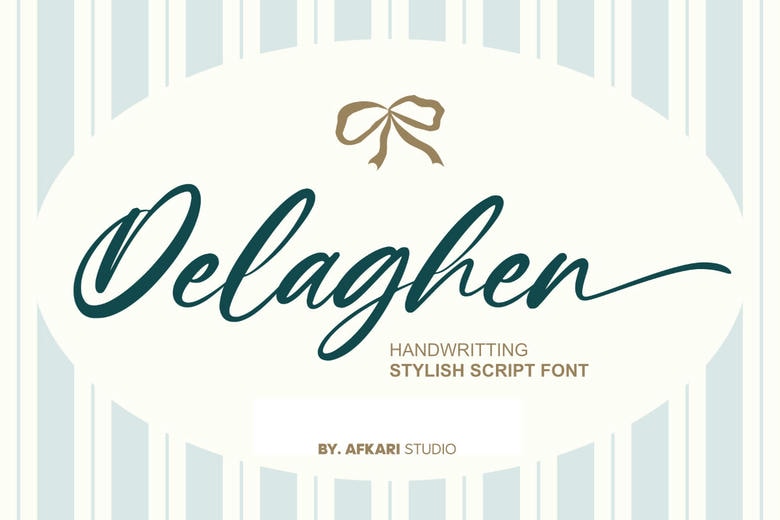
Delaghen Font
Delaghen is a script font that combines elegance with the feel of real handwriting. Its smooth curves and clean lines give it a modern, graceful look, while still keeping the warmth and personality of a handwritten note.
Delaghen’s flowing letters and stylish design make it a good choice for projects that should feel both elegant and friendly. It brings charm and a genuine touch, making your work look beautiful and easy to read.
You can use Delaghen for branding, wedding invitations, social media posts, or packaging. Its flexible and polished style helps your designs stand out.
Delaghen Handwritten Script Font